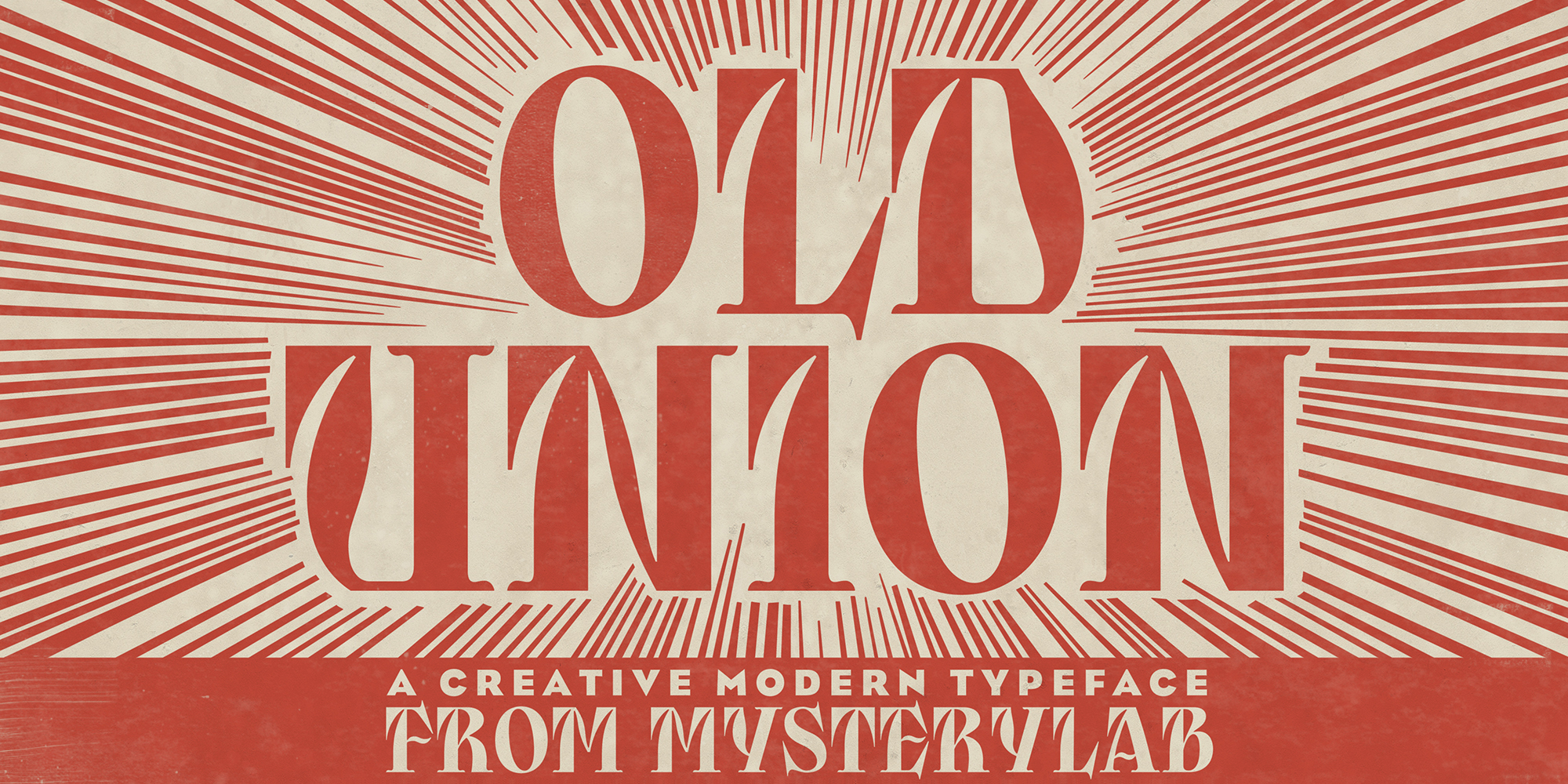
Old Union Font is perfect for historical society branding, vintage labor union materials, industrial heritage museums, traditional craft brewery logos, working-class bar signage, blue-collar restaurant identity, heritage manufacturing companies, vintage worker memorabilia, and authentic American labor campaigns. This distinguished typeface brings industrial heritage and working-class dignity to both digital and print design applications.
Old Union Font is exciting because it embodies the proud tradition and honest craftsmanship of American labor history, making it an exceptional choice for designers who want to convey industrial strength with authentic working-class heritage. Its sturdy letterforms and honest character provide the perfect combination of industrial reliability and dignified functionality, ensuring your projects communicate strength, tradition, and working-class excellence that resonates with audiences seeking genuine American labor heritage and industrial authenticity.
The Old Union Font family includes industrial weight variations and heritage elements, featuring regular and bold weights with complementary weathered styles, labor-inspired ligatures, and traditional industrial decorative elements. Each style maintains consistent working-class aesthetics while offering flexibility for different heritage applications, allowing designers to create powerful visual systems that reflect American labor tradition and industrial craftsmanship.
Whether you're designing for heritage brands, industrial companies, or working-class businesses, Old Union Font Free Download delivers authentic labor appeal and industrial sophistication that connects with audiences seeking genuine American heritage experiences. This premium typeface offers designers the industrial strength and working-class dignity needed to create designs that communicate labor tradition, industrial excellence, and heritage craftsmanship effectively. The font's honest character makes it perfect for heritage branding, industrial campaigns, and labor applications where authentic working-class credibility is essential. Download Old Union Font today and strengthen your creative projects with genuine industrial sophistication and labor typography excellence that defines American heritage standards.